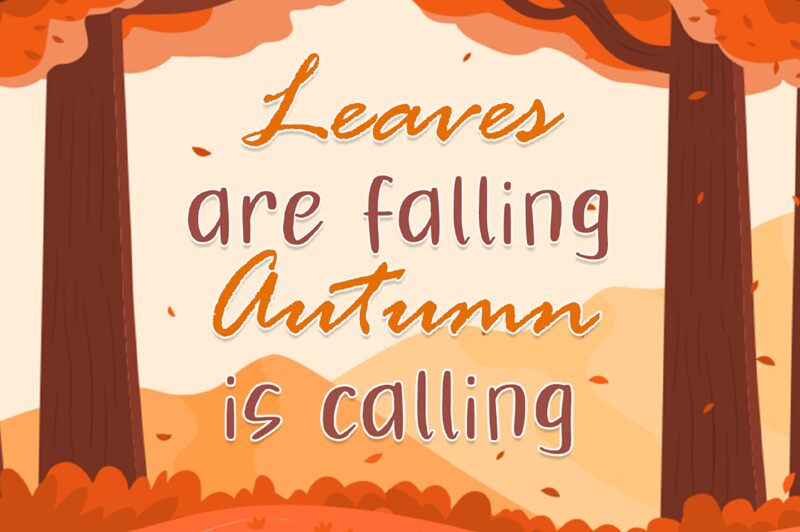
The Autumn Fall font, designed by Muhammad Hisyam Rivai, is a narrow handwritten typeface that adds a classic yet modern touch to any project. From headlines to invitations and logos to blog posts, this font is suitable for any creative project.
Autumn Fall
Muhammad Hisyam Rivai
This font was created By Phantom Creative Studio (Hisyam) From Bandung - Indonesia .